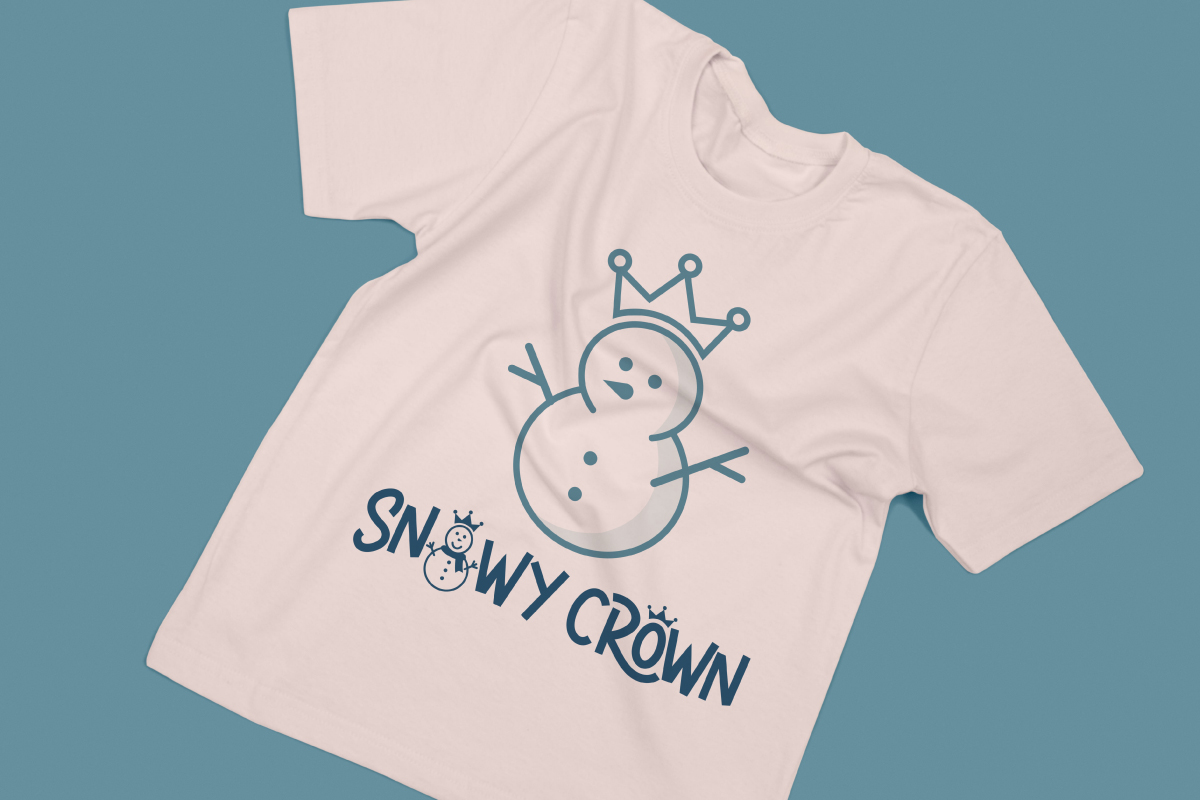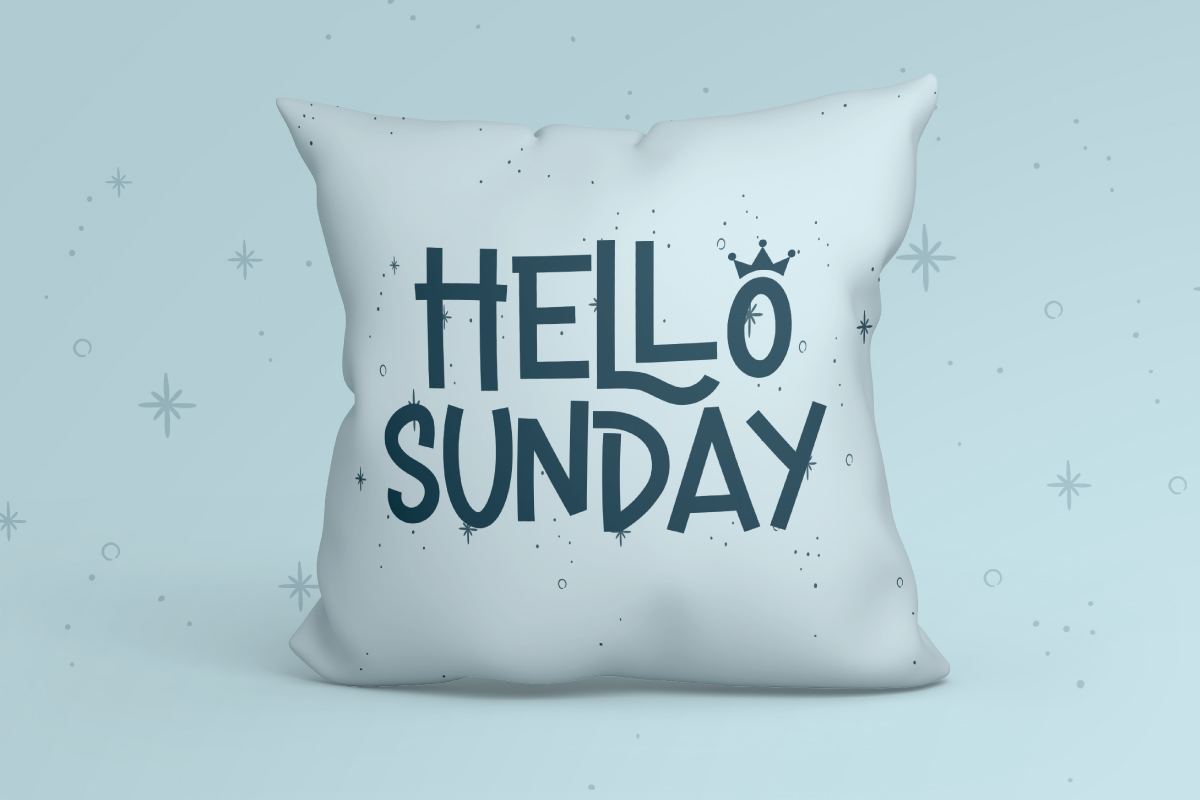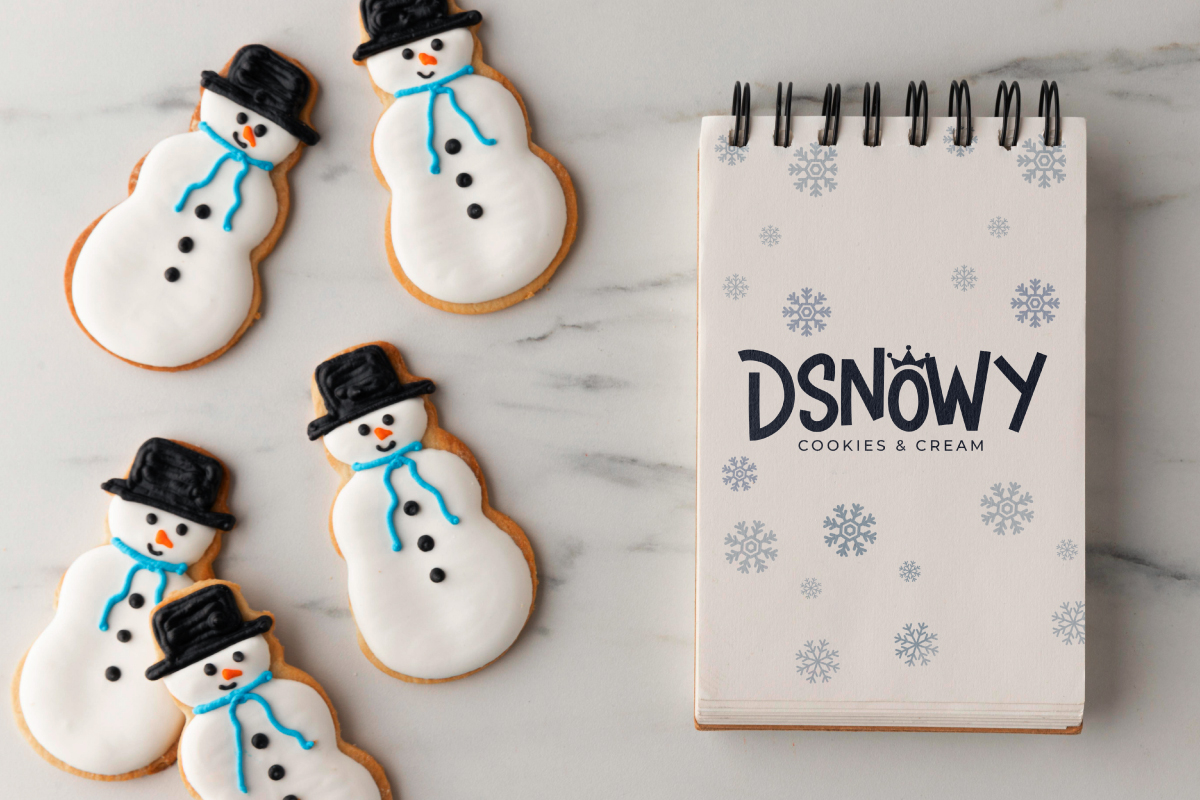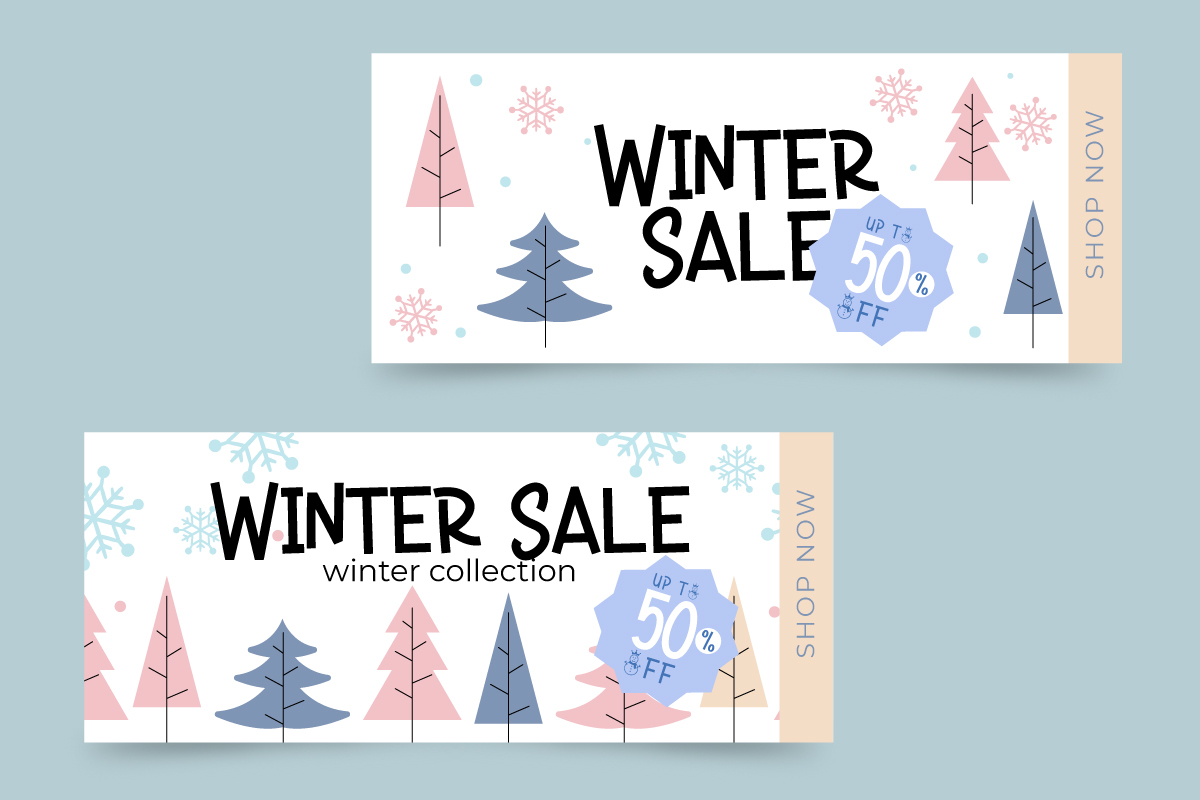
Snowy Crown Font
Snowy Crown Display Font
This is a cartoon display font with winter and fun theme. The font is inspired from Snowy season holiday with cute ornaments, exclusive characters and still easily to read. It will be amazing for any projects including : promotions, festival banner, sales ads and many more. Snowy Crown includes full set of ALL CAPS Basic Characters, Numerals ,Punctuation and ligatures to make it flowless characters to perfectly make awesome look that add more groovy fonts to perfect your extraordinary project.